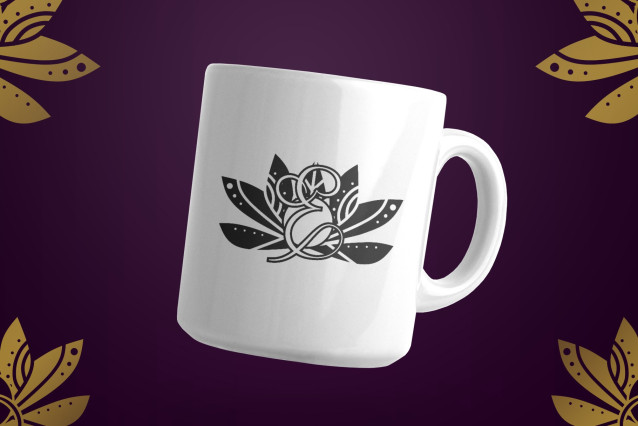
Awmu Display Font
Awmu is a unique and interesting display font. Incredibly versatile, this font will fit a wide pool of designs.
Fall in love with its incredibly stylish look and use it to create spectacular designs!